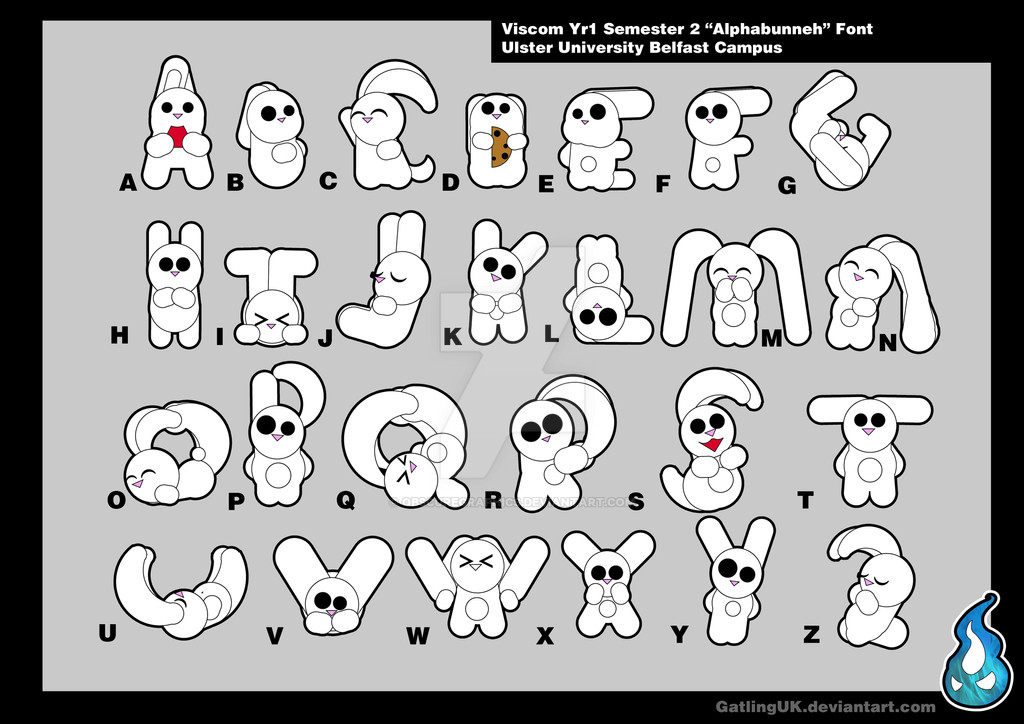
Description We were given 5 module shapes to work with.
we couldn't mess with the proportions of the shape i.e. twist, expand... etc etc but we were allowed to scale, cut, duplicate, and make a font.